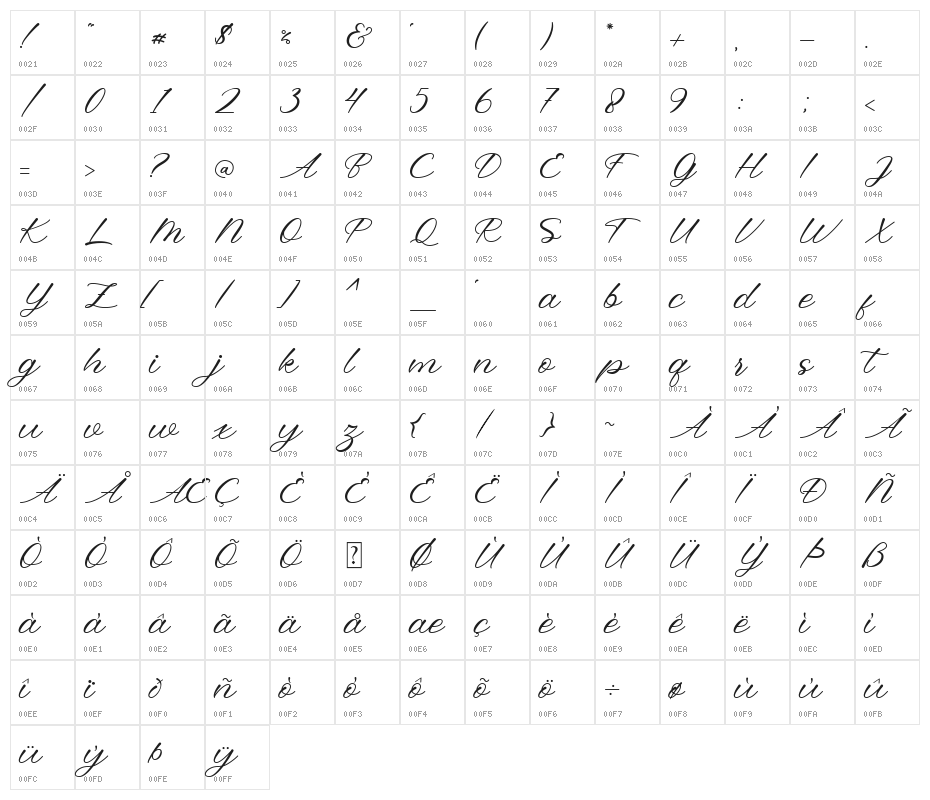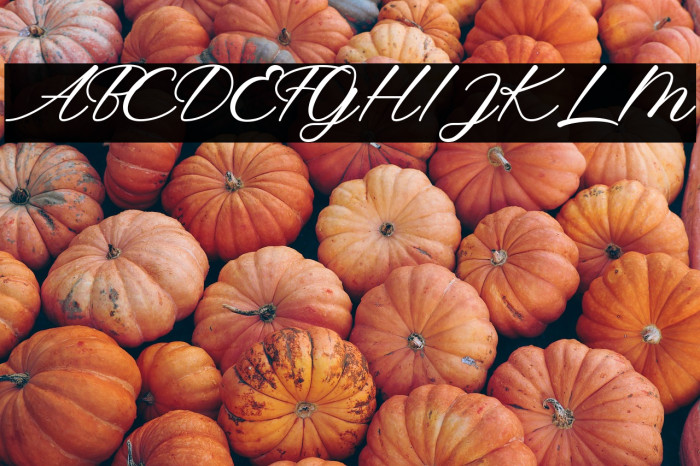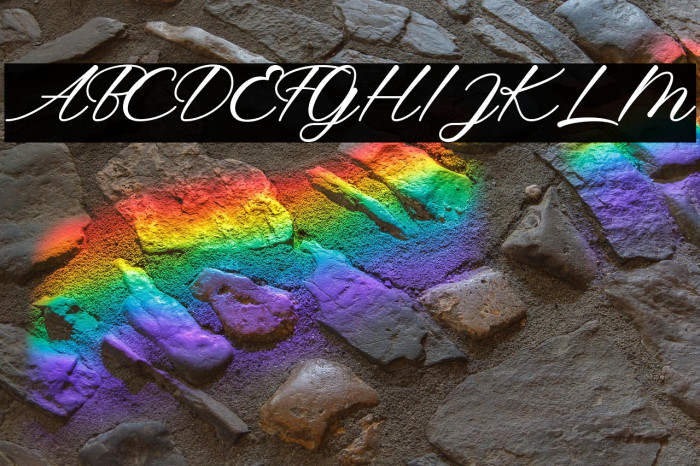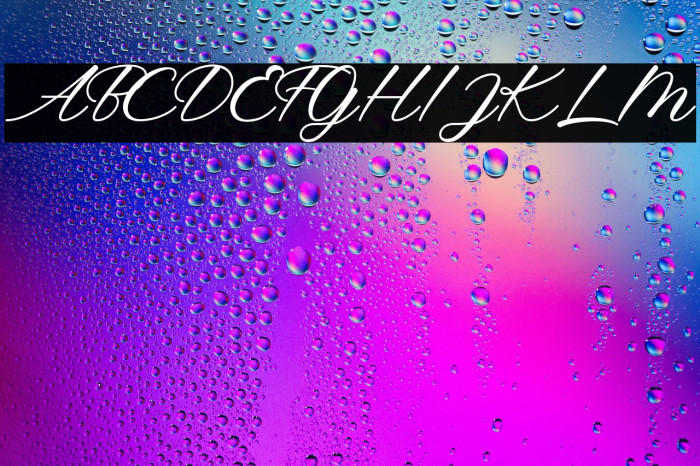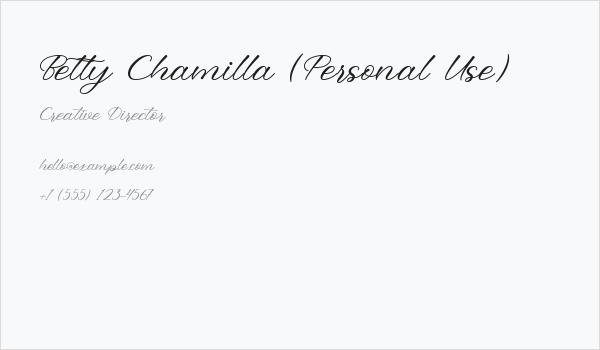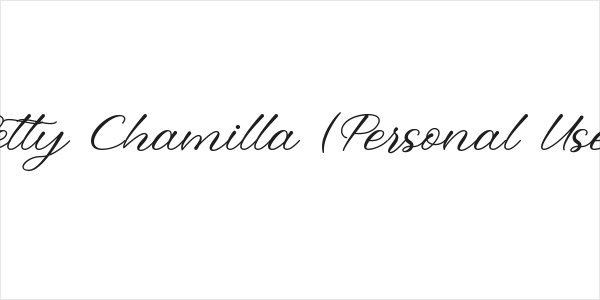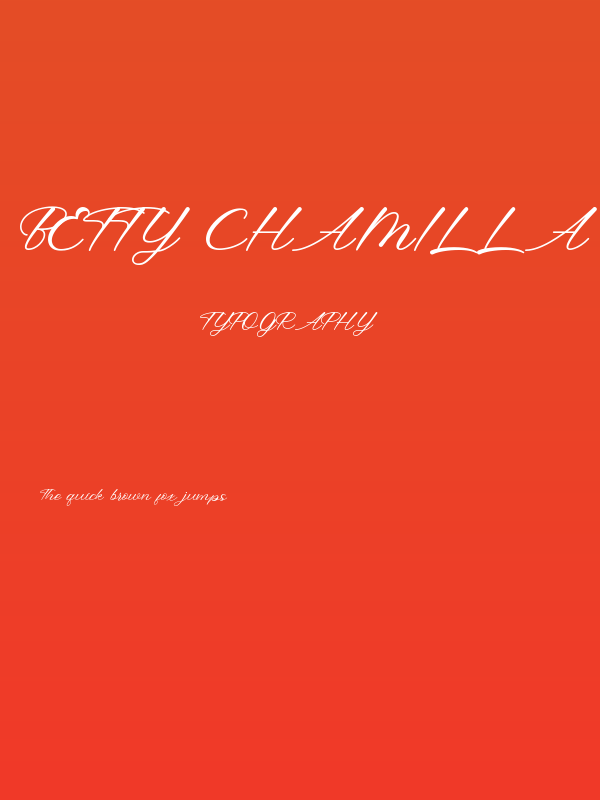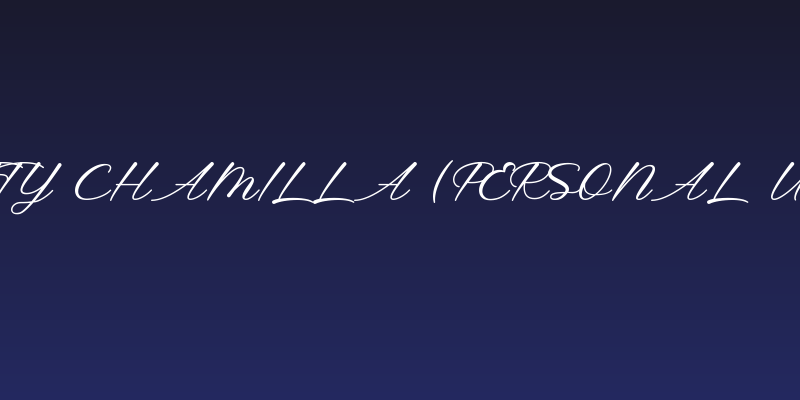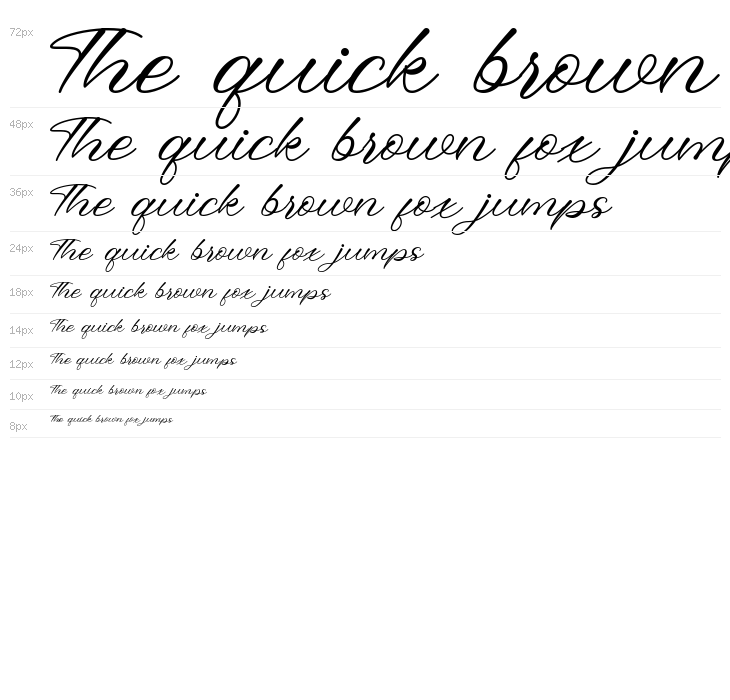
Betty Chamilla (Personal Use) Font
Betty Chamilla (Personal Use) Description
This font features an elegant and flowing script style, characterized by its smooth, cursive letterforms. The uppercase letters are slightly more elaborate, with sweeping curves and loops, while the lowercase letters maintain a consistent, graceful flow. The numerals are designed to match the script style, with a slight slant and rounded edges. Special characters are integrated seamlessly, maintaining the overall aesthetic. The font exudes a sense of sophistication and is ideal for projects that require a personal touch.
Overall StyleElegant
Use CaseLogos, Invitations, Personal Branding
Proposed ProjectsIdeal for wedding invitations, greeting cards, personal branding, and elegant packaging designs.